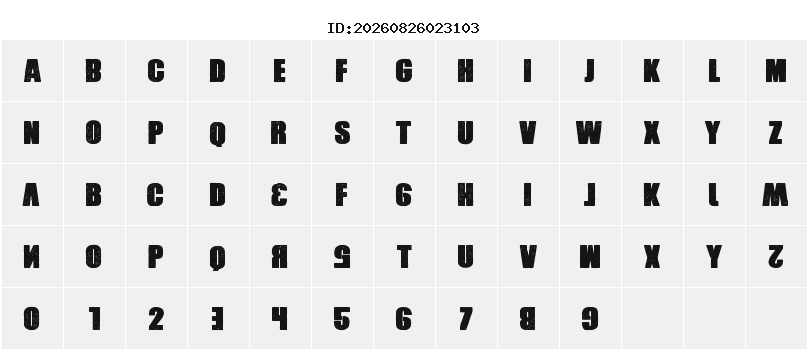
Xxrdcore Preview
• Font Name: Xxrdcore
• Full Font Name: Xxrdcore
• Designer: Andrew McCluskey
About Xxrdcore.otf
Xxrdcore.otf is a modern, elegant sans-serif font designed for ultimate readability and visual harmony. Perfect for branding, headlines, web design, and print materials.